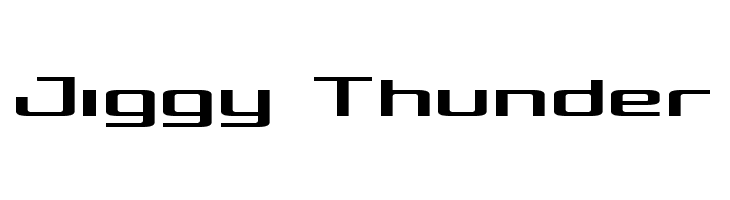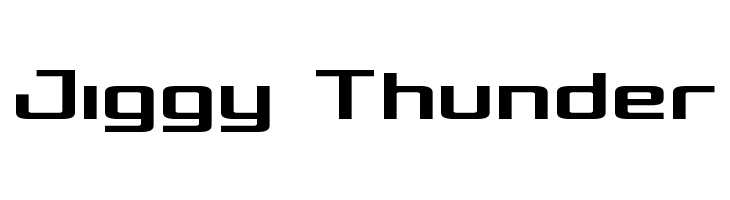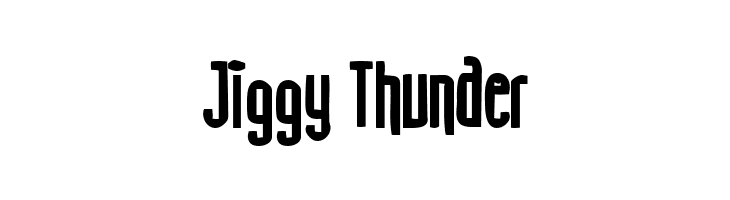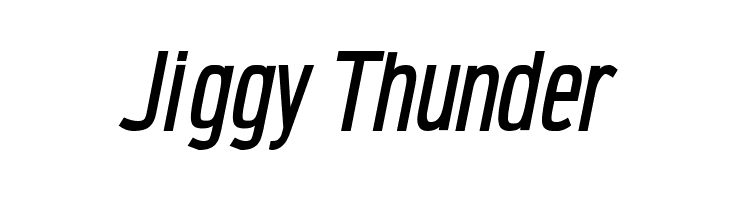
• Concielian Break Expanded Italic
A sleek, futuristic font with expanded and italicized characters.
A futuristic, expanded semi-italic font with a dynamic and sleek style.
• Concielian Break Italic
A sleek, italicized font with a futuristic and dynamic design.
• Concielian Break Leftalic
A futuristic, angular font with sharp edges and a dynamic slant.
• Concielian Break Semi-Italic
A sleek, semi-italic font with a modern and dynamic design.
• Concielian Condensed
A modern, geometric font with a condensed structure and clean lines.
• Concielian Condensed Italic
A modern, condensed italic font with a sleek and dynamic style.
• Concielian Condensed Semi-Italic
A modern, condensed, semi-italic font with medium contrast and sleek design.
• Concielian Expanded
A futuristic, geometric font with expanded letterforms and a tech-inspired design.
• Concielian Expanded Italic
A modern, italicized, and expanded font with a futuristic design.
• Concielian Expanded Semi-Italic
A modern, expanded, semi-italic font with consistent stroke thickness and smooth curves.
• Concielian Italic
A modern, italicized font with a sleek and dynamic design.
• Concielian Leftalic
A futuristic, angular font with a slanted, dynamic style.
• Concielian Light
A modern, geometric font with a clean and futuristic design.
• Concielian Light Italic
A sleek, modern italic font with a geometric and futuristic design.
• Concielian Light Semi-Italic
A sleek, semi-italic font with a modern, dynamic design.
• Concielian Semi-Italic
A sleek, semi-italic font with a modern, dynamic style.
• Concrete Shoes
A bold, condensed, and decorative font with high contrast and tight spacing.
• CondensansPaneurope
A modern, condensed sans-serif font with a clean and streamlined appearance.
• CondensansPaneurope-Medium
A modern, condensed sans-serif font with a clean and professional appearance.
A modern, oblique, and condensed font with a sleek appearance.
• CondensansPaneurope-Oblique